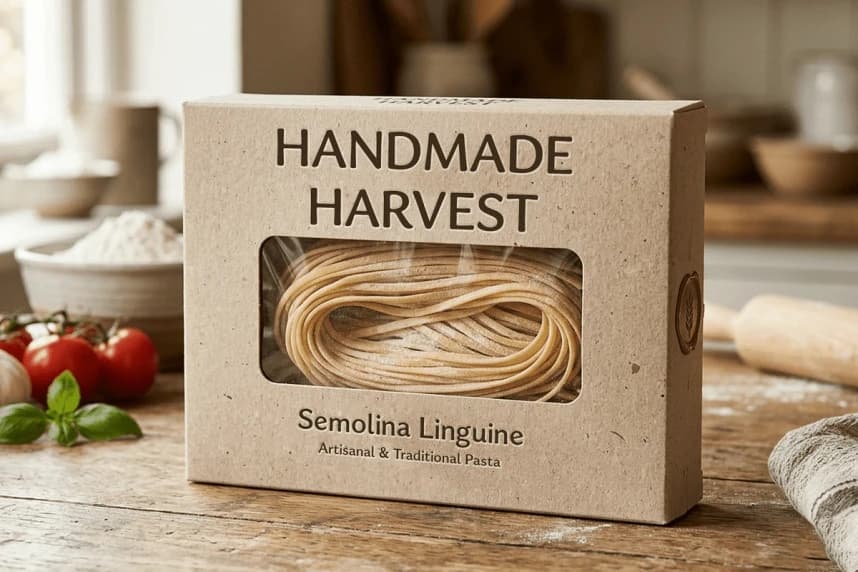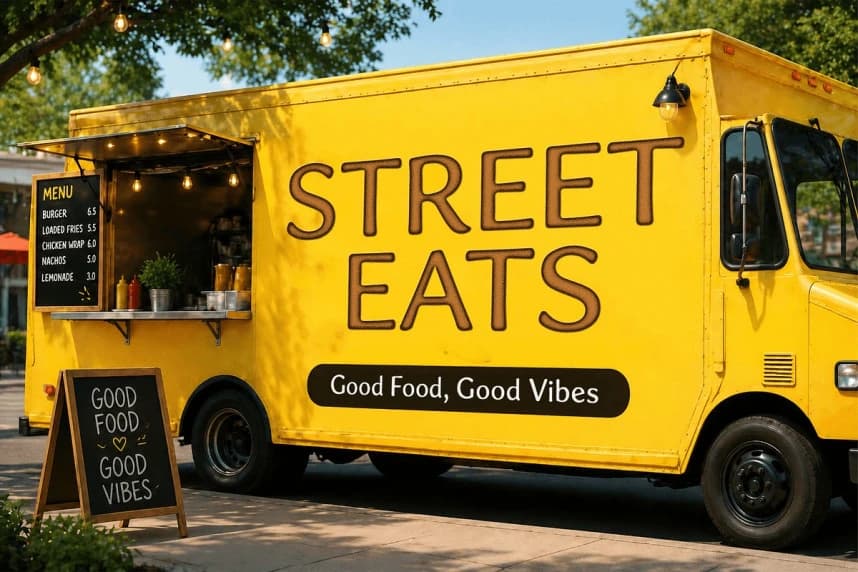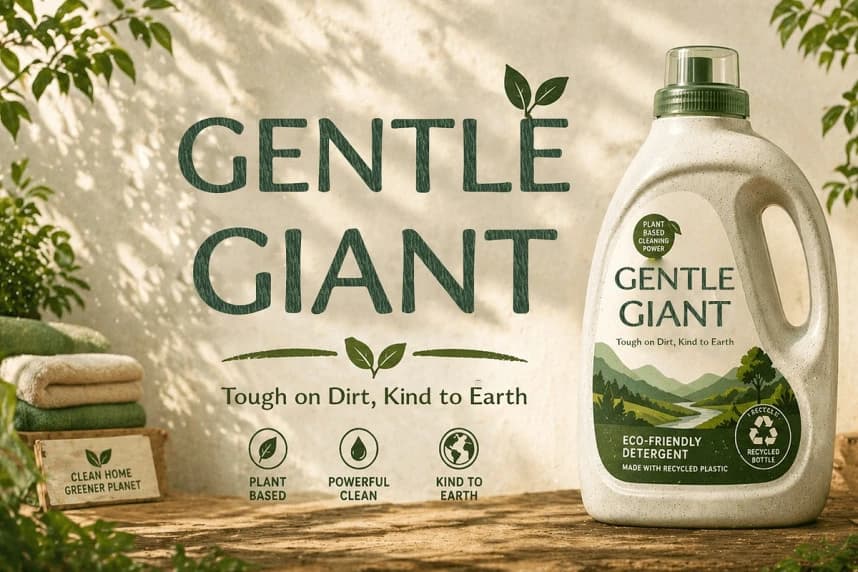
Aurelia Sunlight Font
Aurelia Sunlight Font is a warm, humanist display font that radiates softness and character. Designed with organic curves and confident strokes, it brings a friendly yet refined presence to any design — perfect for branding, editorial headers, packaging